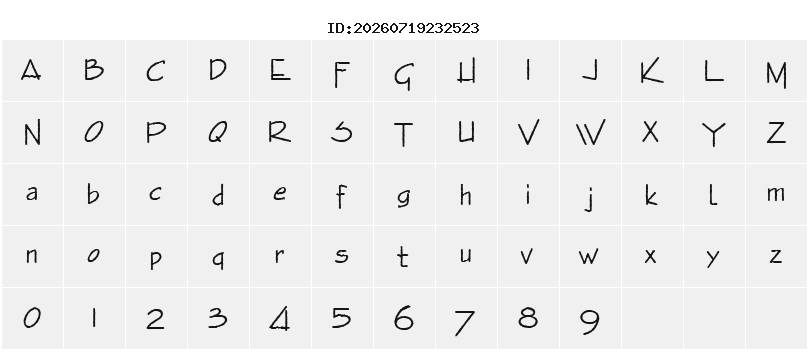
EnviroAntD Preview
• Font Name: EnviroAntD
• Full Font Name: EnviroAntD
About EnviroAntD.ttf
EnviroAntD.ttf is a modern, elegant sans-serif font designed for ultimate readability and visual harmony. Perfect for branding, headlines, web design, and print materials.